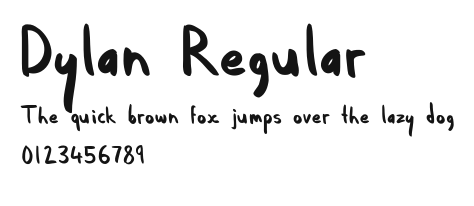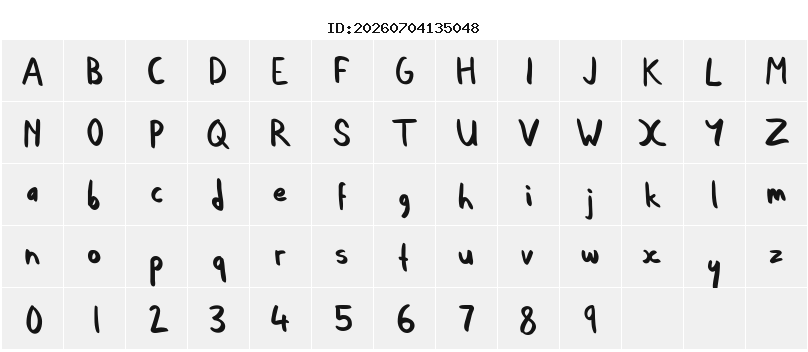
About Dylan Regular.ttf
Dylan Regular.ttf is a modern, elegant sans-serif font designed for ultimate readability and visual harmony. Perfect for branding, headlines, web design, and print materials.